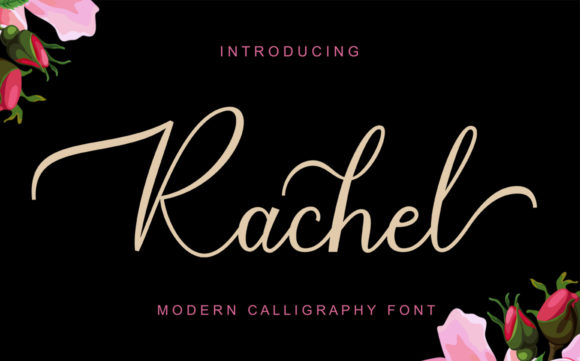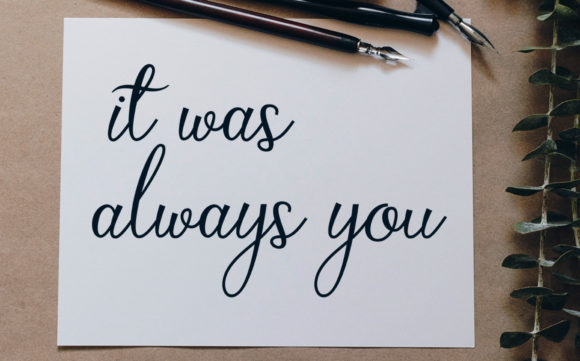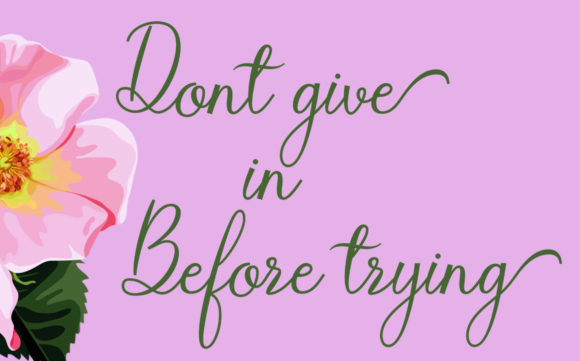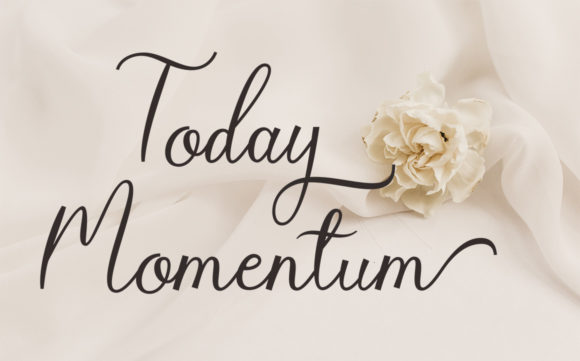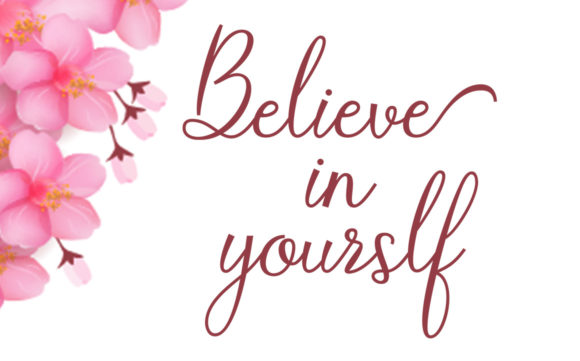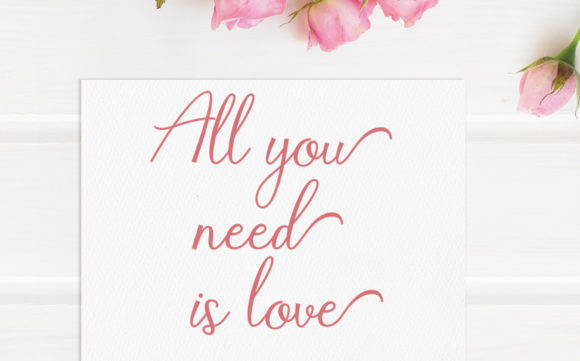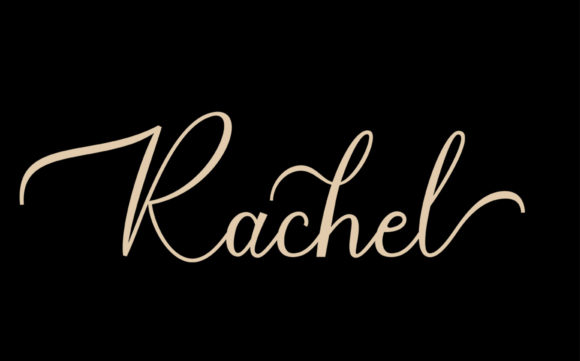
Rachel Font
About Rachel Font
Rachel is inspired by classic typography and brings its own unique style to any design project. Whether you’re looking for fonts for Instagram or calligraphy scripts for DIY projects, this handwritten font will turn any creative idea into a true piece of art!